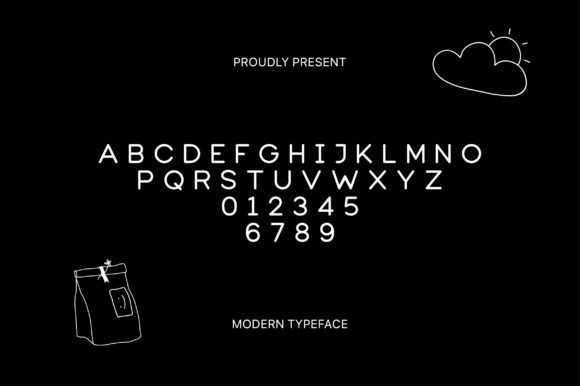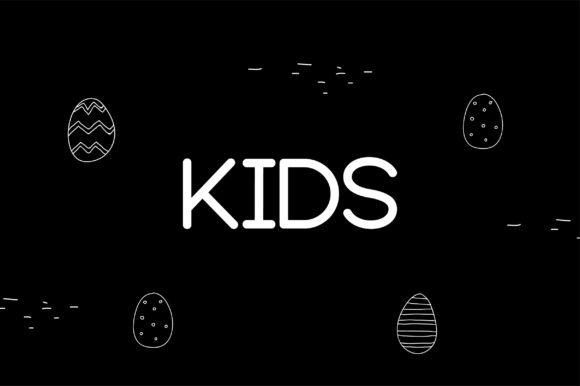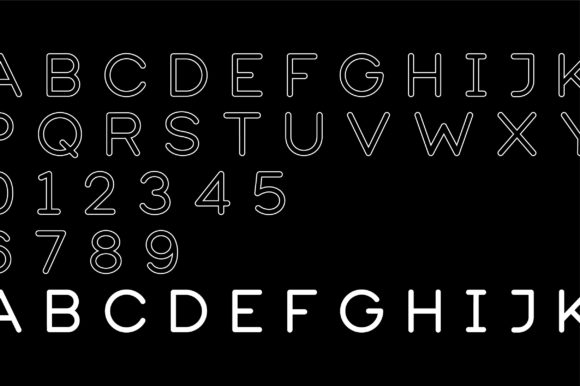
Introduction to Jocge Font
Have you ever stared at a blank canvas, trying to find the perfect font to bring your creative project to life? We’ve all been there, right? The search can be overwhelming, but what if I told you that I’ve discovered a game-changing design resource that’s about to revolutionize your workflow? Say hello to the Jocge Font – a clean and simple sans serif font that’s sure to elevate any design to the next level.
With its neat, thin, and smooth vibe, the Jocge Font is a high-quality addition to any design project. Whether you’re working on a logo, a brochure, or a website, this versatile font is sure to impress. Plus, with a transparent background, you can easily layer it over any image or background without any distractions. And the best part? It’s available for a free download, making it an absolute must-have for any designer looking to take their creative projects to the next level.
Key Features of Jocge Font
- Unique, hand-drawn design perfect for creative projects requiring a personal touch.
- High-quality design resource ideal for graphic designers, artists, and writers seeking a distinctive font.
- Designed to be highly legible, with clear letterforms and a consistent stroke width.
Honest Review: Jocge Font
I recently stumbled upon the Jocge Font, and I must say it’s a unique addition to any design project. This font has a lot of character, making it perfect for creative projects where you want to stand out from the crowd.
- What works well: ✨ The Jocge Font is highly versatile and can be used for both headings and body text. Its bold, playful style makes it perfect for highlighting important information or adding a touch of whimsy to your design.
- What works well: ✨ The font’s high quality and detailed design make it a great resource for designers who want to add some personality to their work.
However, there are a few limitations to keep in mind: ⚠️ The font’s transparent background can be a bit tricky to work with, especially if you’re not familiar with advanced design techniques.
Overall, I’m impressed with the Jocge Font. Its unique style and high quality make it a valuable addition to any design resource library. Whether you’re working on a personal project or a client assignment, this font is definitely worth checking out.
Jocge Font is a high-quality, free design resource perfect for creative projects. With its unique style and versatility, it’s an ideal choice for designers and artists looking for a premium font without the premium price tag.
Jocge Font is perfect for:
Branding and logos
Marketing materials
Graphic design projects